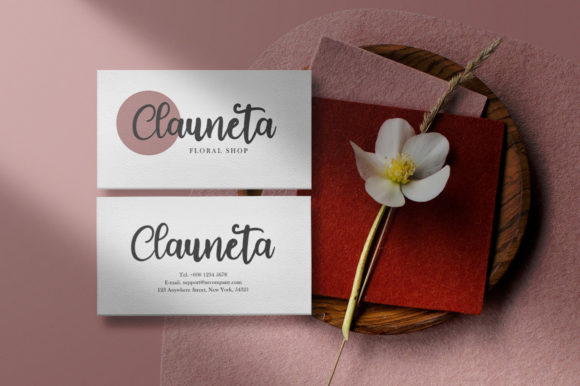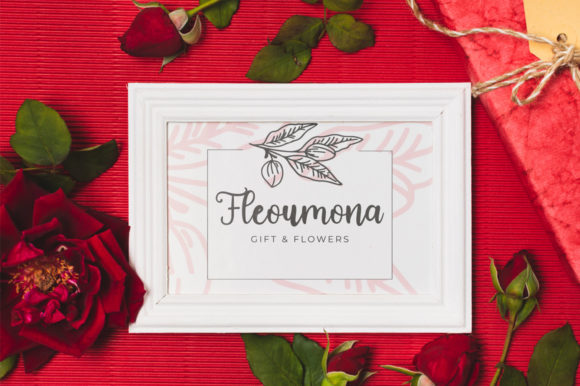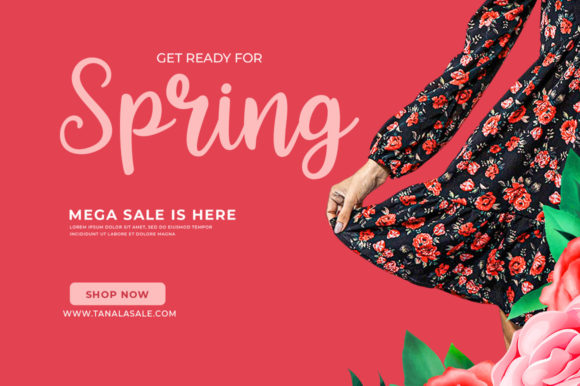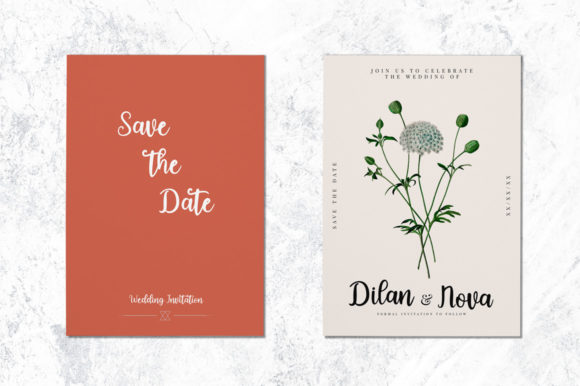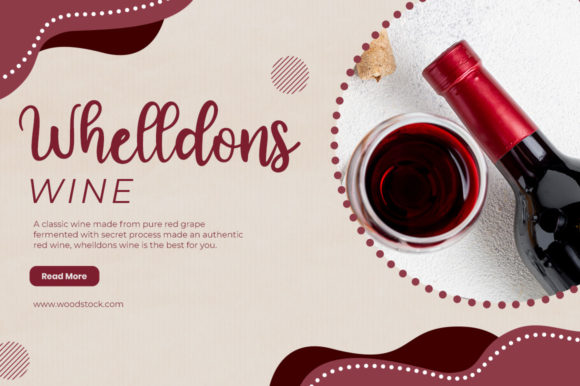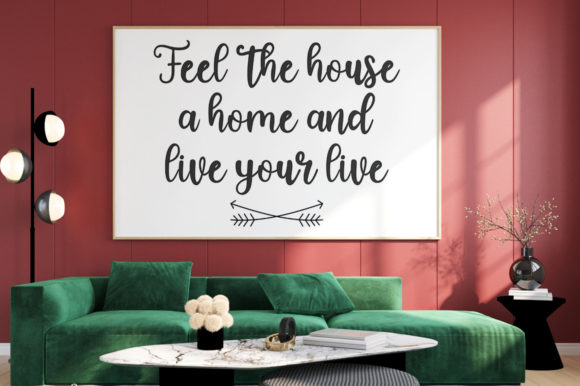
Dilanova Font: Elevate Your Designs with Elegance and Sophistication
In the world of typography, fonts play a crucial role in conveying the tone and personality of a design. For those seeking a script font that embodies elegance and class, look no further than Dilanova Font. This lovely and delicate font is specifically crafted to add a touch of sophistication to your designs, making it perfect for crafters, designers, and anyone looking to elevate their visual creations.
The Beauty of Dilanova Font
Dilanova Font is a script font that boasts a unique and refreshing look, setting it apart from other fonts in its category. Its delicate strokes and elegant curves make it an ideal choice for designs that require a touch of refinement and poise. Whether you’re working on a branding project, creating wedding invitations, or designing a logo, Dilanova Font is sure to impress.
Key Features of Dilanova Font
- Elegant and Delicate: Dilanova Font features delicate strokes and elegant curves, making it perfect for designs that require a touch of sophistication.
- Script Font: As a script font, Dilanova Font is ideal for adding a personal and creative touch to your designs.
- Refreshing Look: The font’s unique and refreshing look sets it apart from other fonts in its category, making it perfect for designers looking to create something new and exciting.
- Easy to Read: Despite its delicate nature, Dilanova Font is easy to read, making it suitable for body text and headlines.
Uses of Dilanova Font
Dilanova Font is a versatile font that can be used in a variety of design projects, including:
- Branding: Use Dilanova Font to create elegant and sophisticated brand identities that reflect your company’s values and personality.
- Wedding Invitations: Add a touch of romance and elegance to your wedding invitations with Dilanova Font.
- Logos: Create stunning logos that showcase your brand’s personality and style with Dilanova Font.
- Packaging: Use Dilanova Font to add a touch of sophistication to your product packaging and make it stand out on store shelves.
Tips for Using Dilanova Font
To get the most out of Dilanova Font, here are some tips to keep in mind:
- Pair it with a Sans-Serif Font: Pair Dilanova Font with a sans-serif font to create a beautiful contrast and add visual interest to your design.
- Use it for Headlines: Use Dilanova Font for headlines and titles to add a touch of elegance and sophistication to your design.
- Experiment with Colors: Experiment with different colors and textures to add depth and visual interest to your design.
In conclusion, Dilanova Font is a lovely and delicate script font that exudes elegance and class. Its unique and refreshing look makes it perfect for designers and crafters looking to add a touch of sophistication to their designs. With its versatility and ease of use, Dilanova Font is sure to become a staple in your font collection.
Whether you’re a seasoned designer or a crafty DIY enthusiast, Dilanova Font is sure to inspire your creativity and take your designs to the next level.